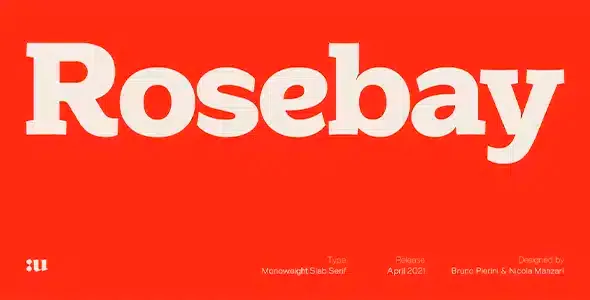
Rosebay Slab Premium Font
Rosebay Slab Premium Font is an unconventional slab serif that features some distinctive features like innovative arched slabs and claw-like ink traps. Excellent for any modern communication project.
This 1970s-inspired slab has been designed with an elegant structure that supports its extreme weight. The unprecedented interplay between sharp and soft shapes, characterising the harmonic geometry, provides high legibility and originality for branding, highlights and headlines.
“Rosebay Slab” includes its matching oblique and covers several languages ​​based on the Latin alphabet.